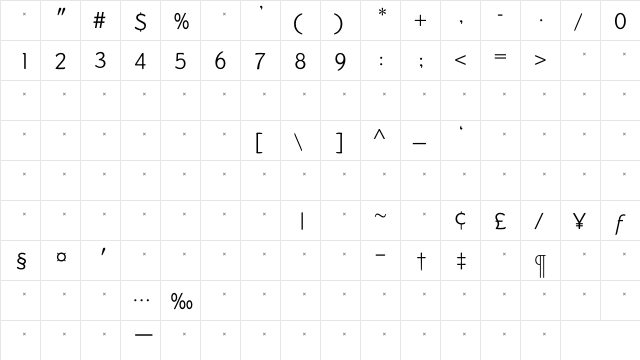
DundeeLightTab Regular
Design Context for DundeeLightTab Typeface
DundeeLightTab takes a measured approach to typography — its balanced proportions and neutral character make it a reliable workhorse for both digital and print work. The delicate stroke weight brings airiness and refinement to layouts.
Pro Tip: Use DundeeLightTab in both headline and body roles to test its range before committing to a single application.